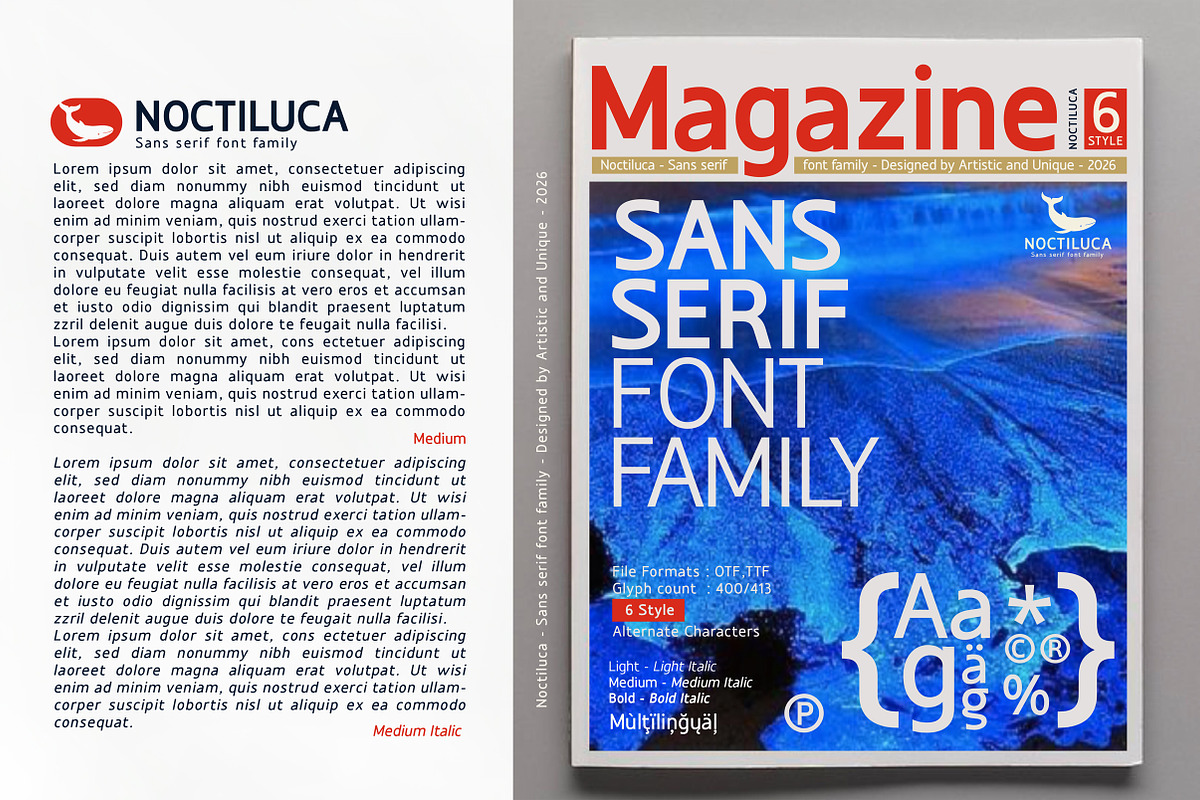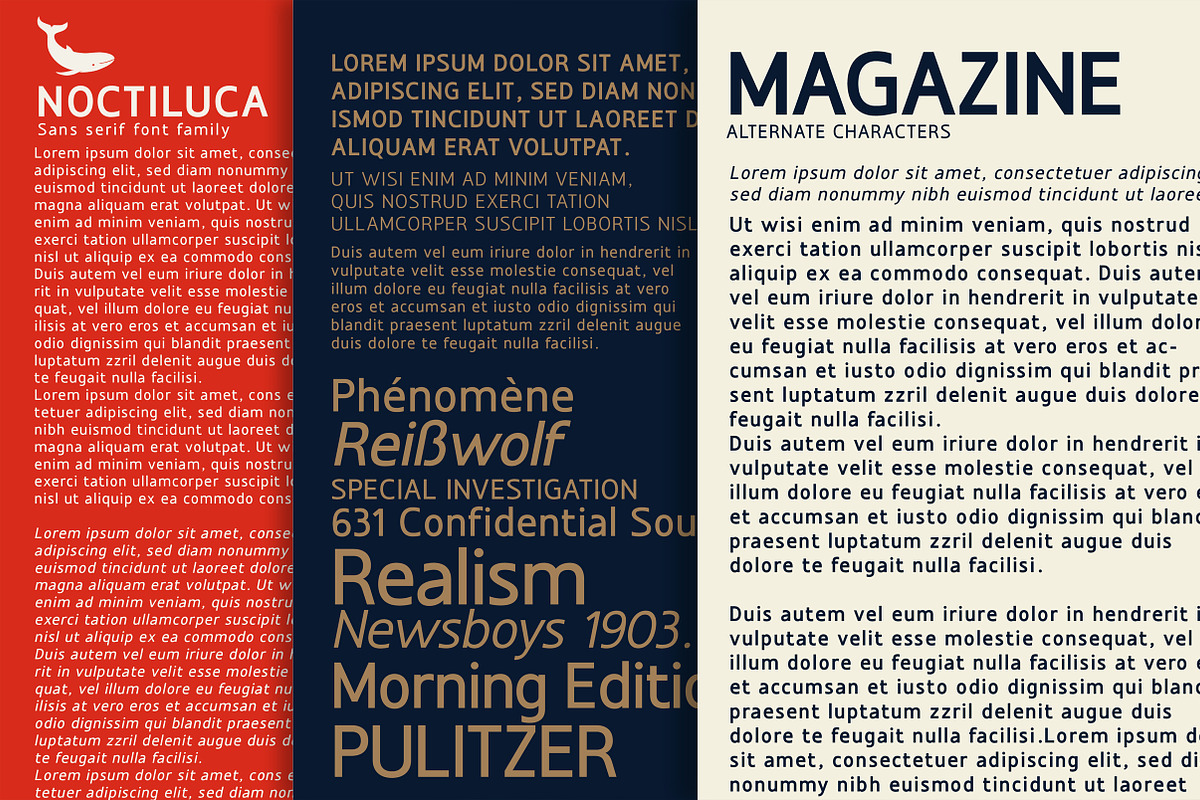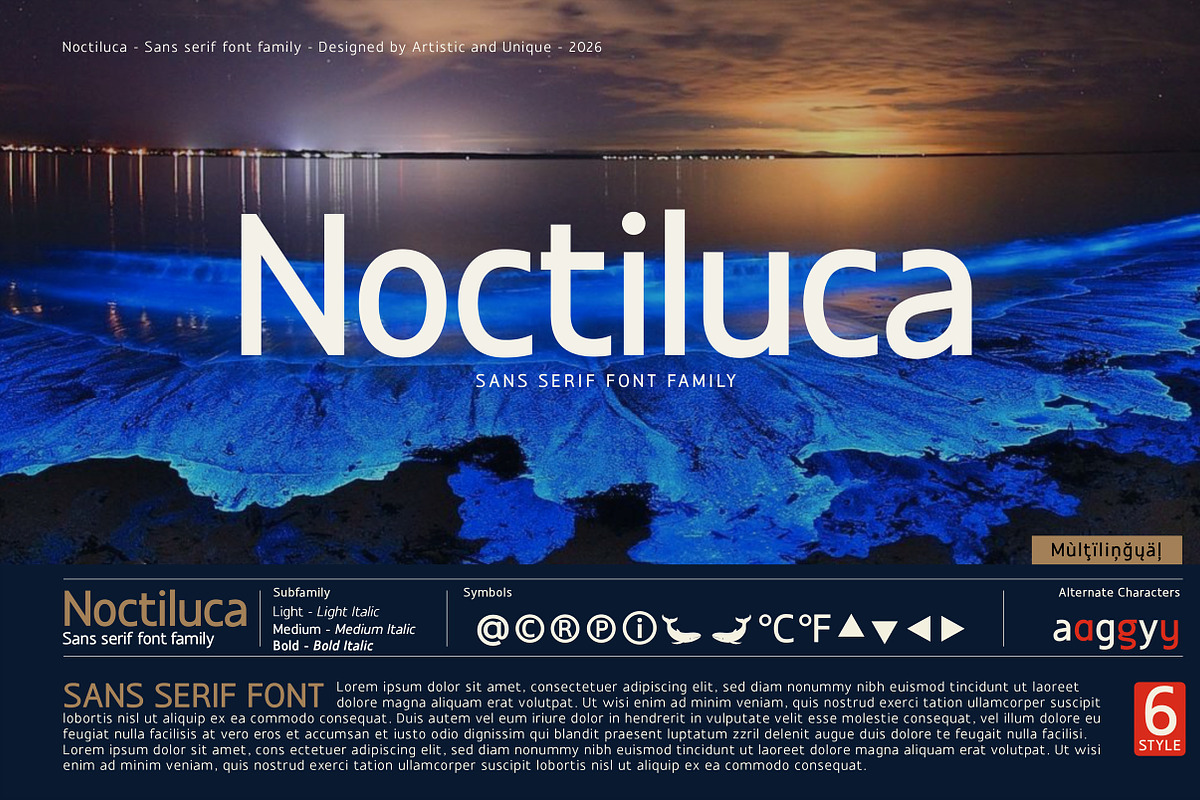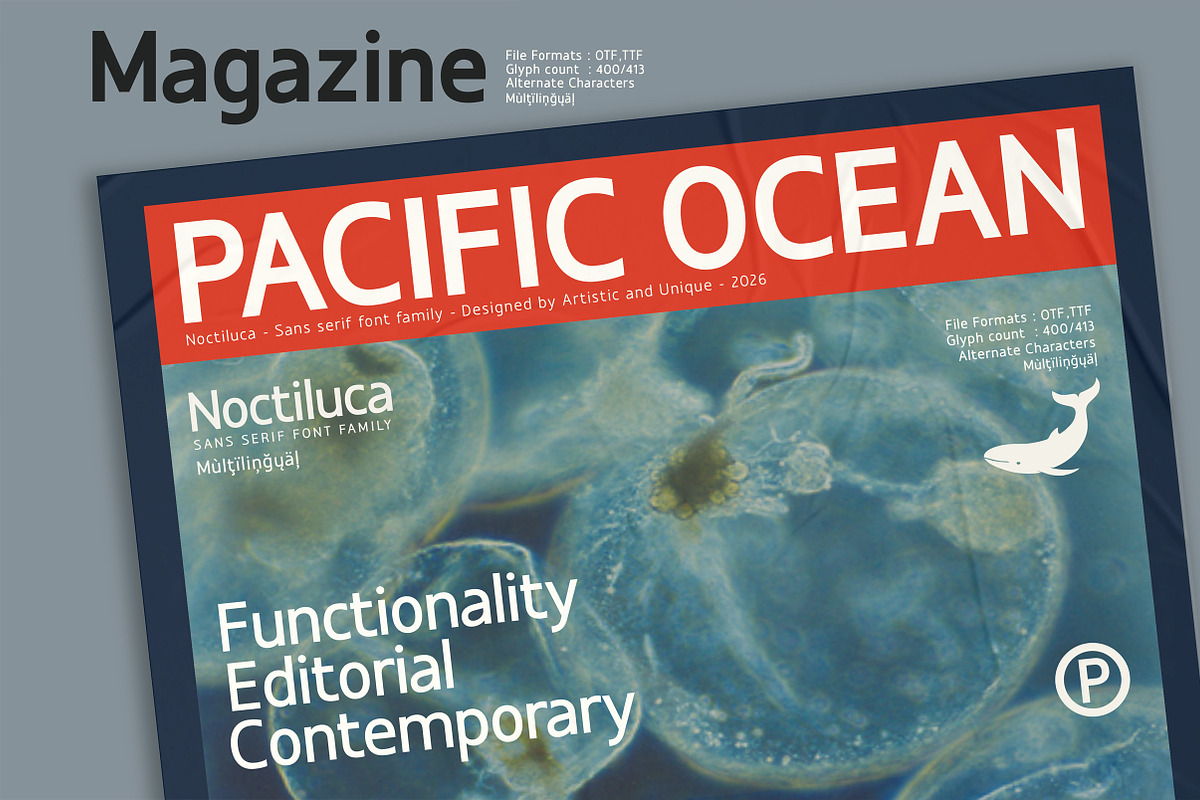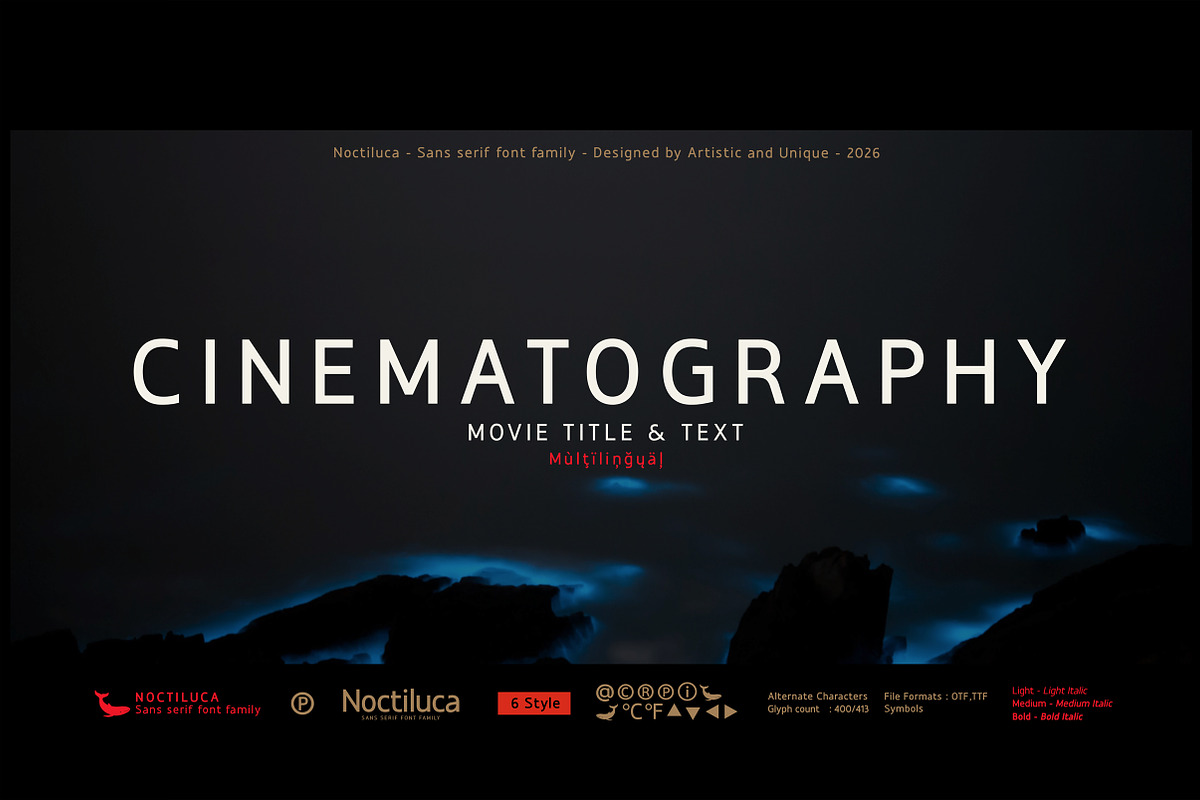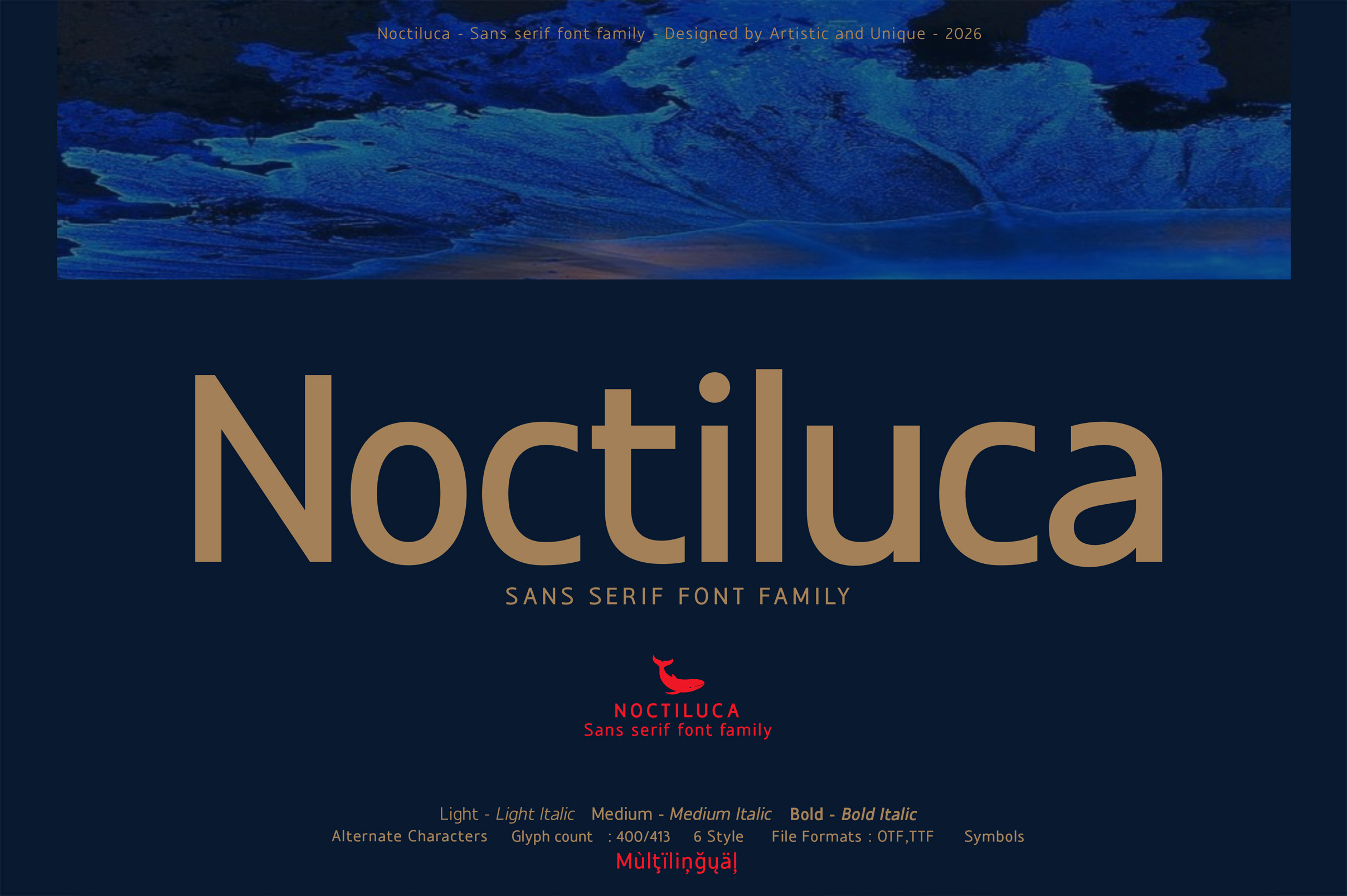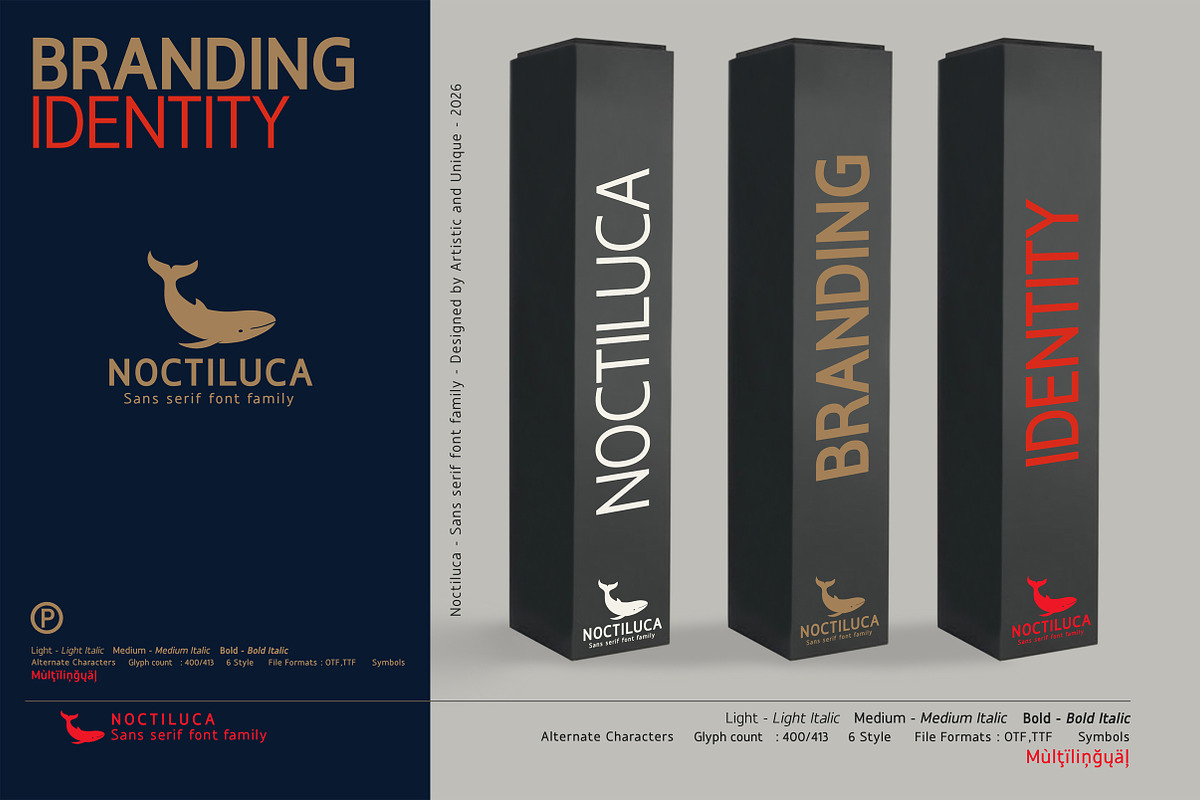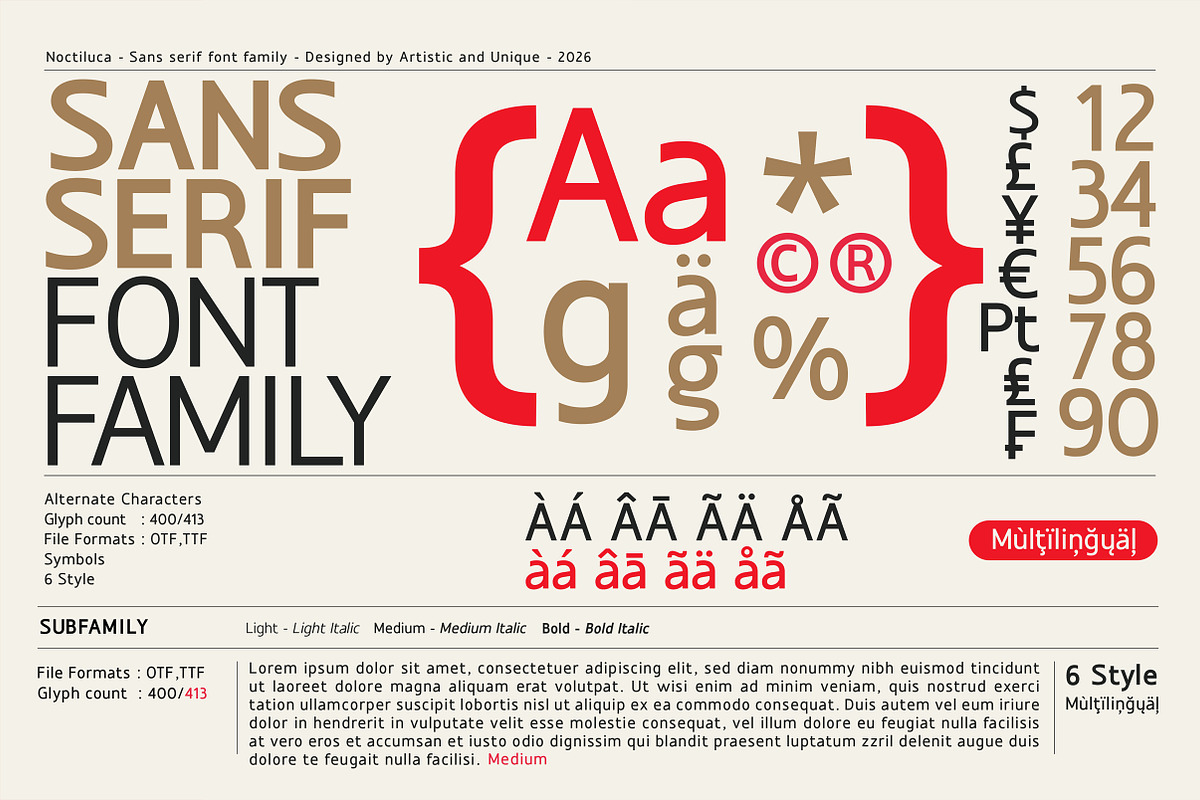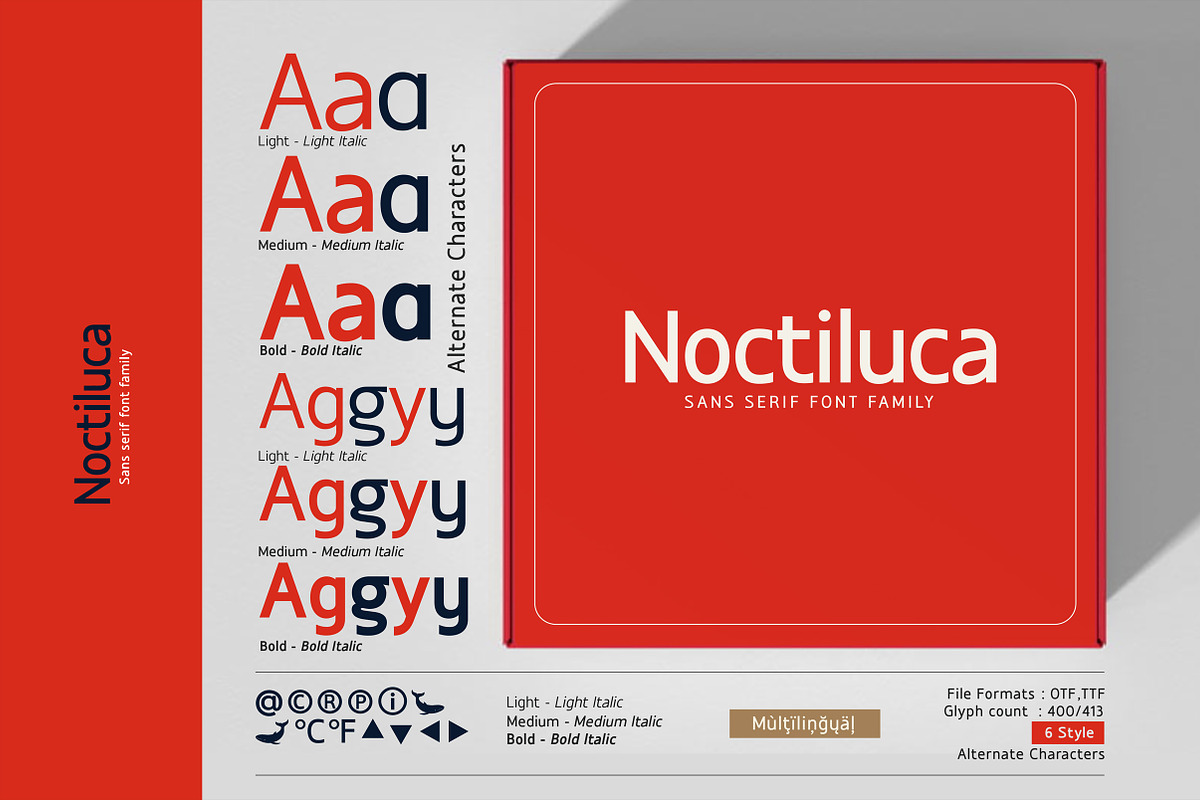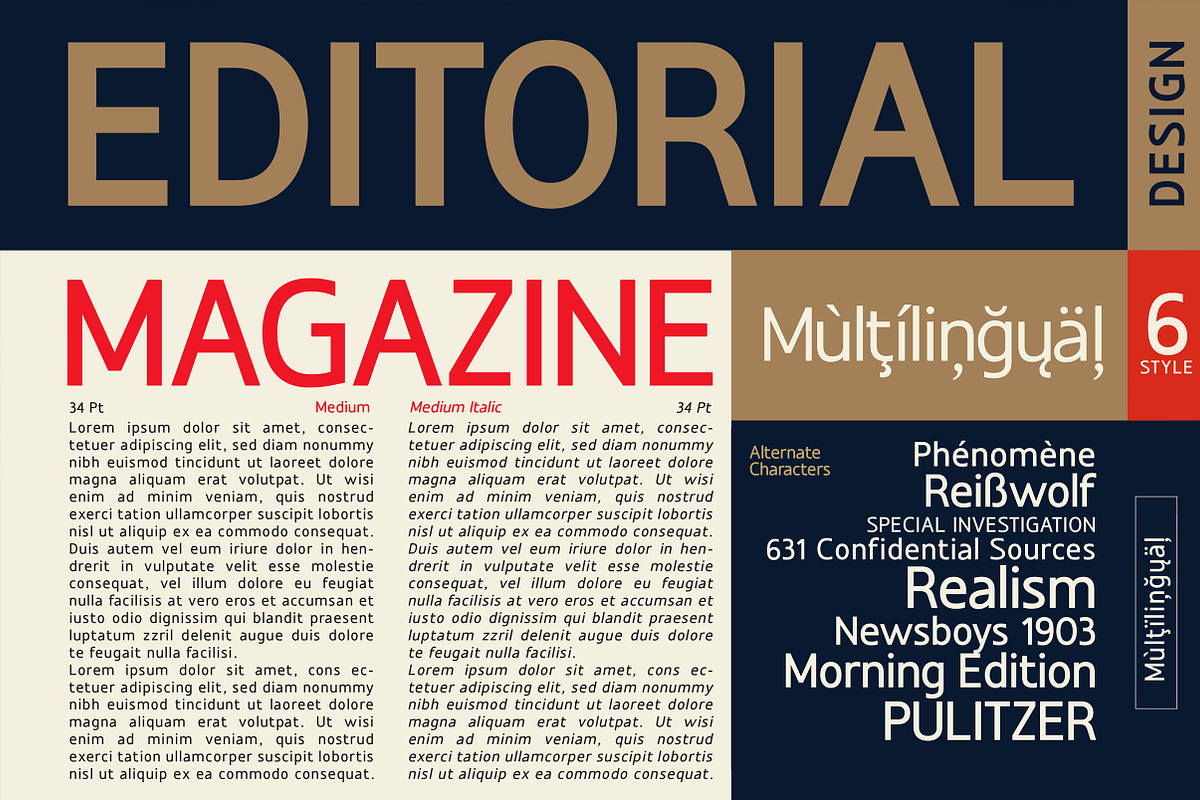
Noctiluca - Sans Serif Font Family
Noctiluca - Sans Serif Font Family - 6 Styles - Multilingual Support.
This family features six distinct styles offering consistent, high readability and elegance across a variety of creative projects. Its clean look and modern structure make it ideal for logo and branding. Multilingual support further enhances flexibility; lighter tones provide an elegant visual appearance, while darker tones stand out with consistent and strong emphasis in headlines. Noctiluca is a comprehensive sans serif font family offering a refined solution for designers seeking to enhance their visual toolsets. Its structural anatomy integrates seamlessly into both digital and print projects while providing a timeless and innovative look.
- Multilingual support,
- 6 different styles,
- Style alternatives,
- Rich glyph options (413),
- Perfect for branding and editorial design,
- Suitable for web and logo design,
- Alternative characters and additional symbols.
Whether you're editorial, designing book, magazine, newspaper, packaging, film titles and content, branding, branding identity, website or logo design, the Noctiluca font family offers a harmonious blend of aesthetics for your modern and innovative needs.